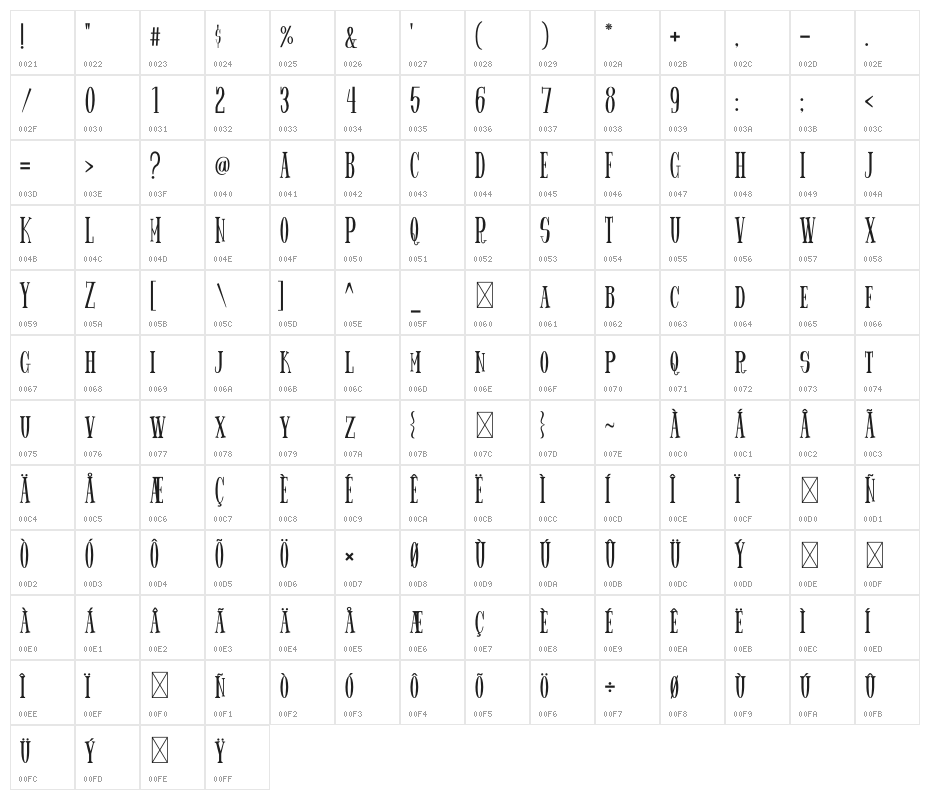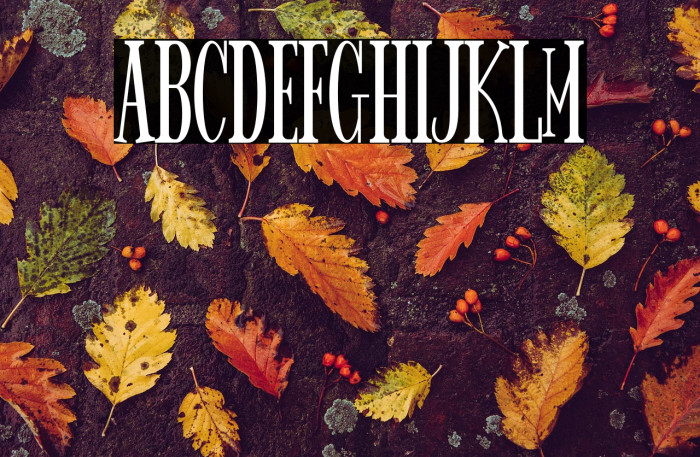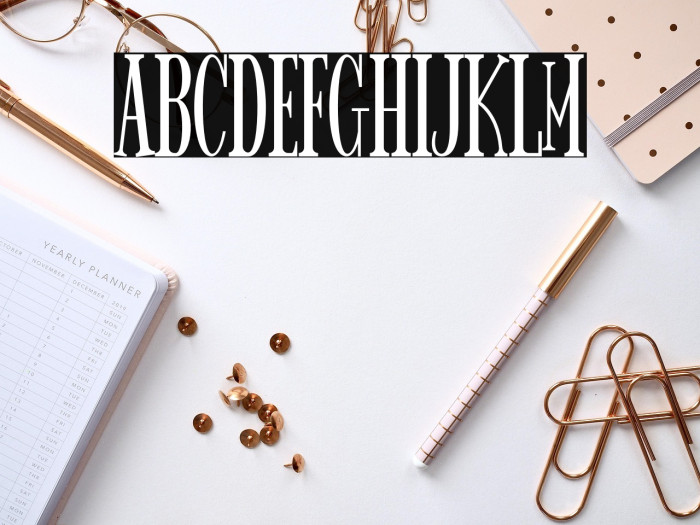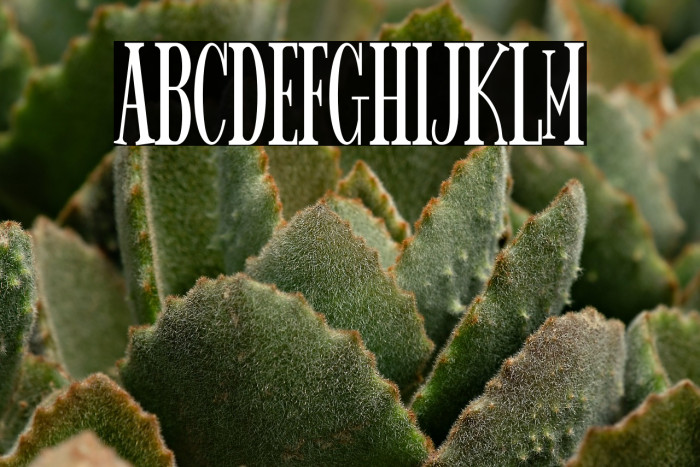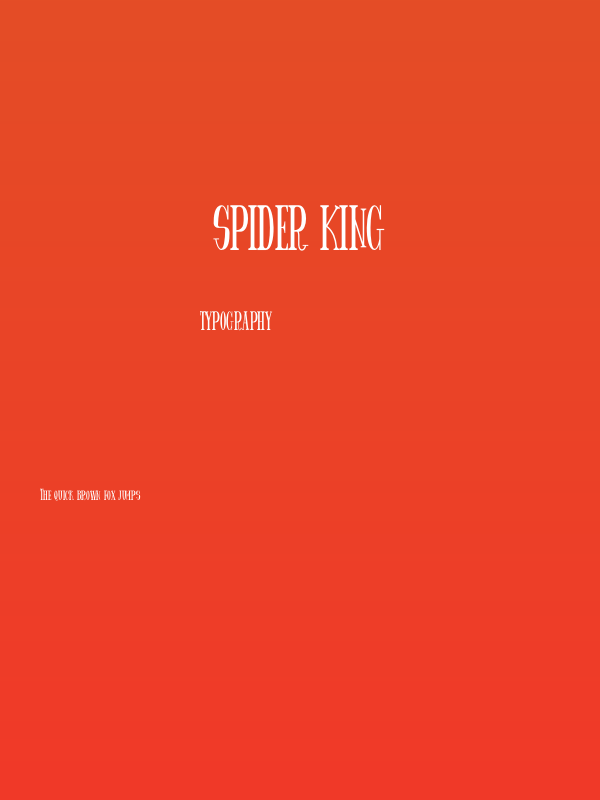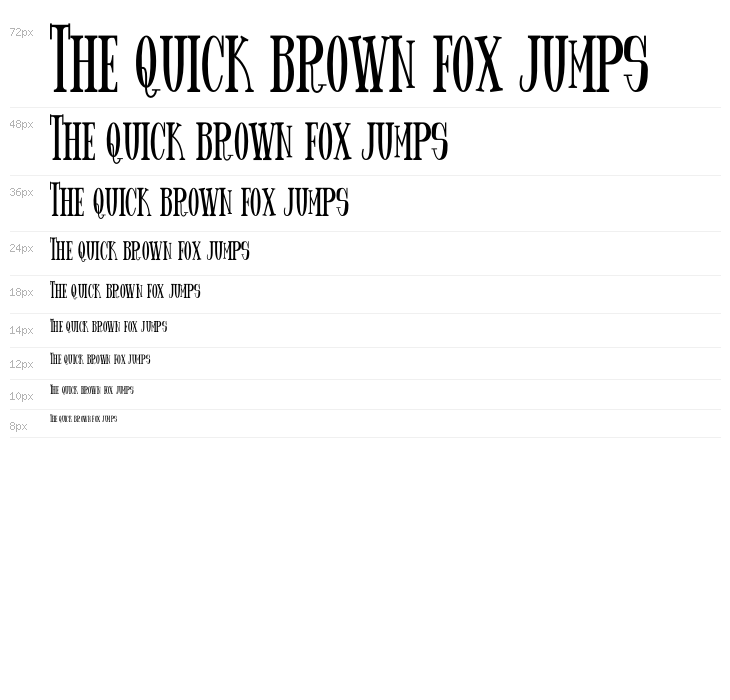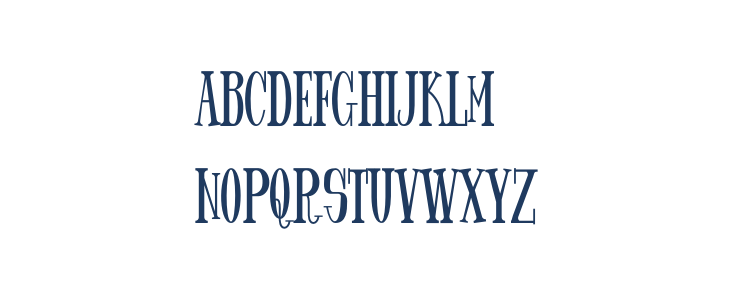
Spider King Font
Spider King Description
This font features a distinctive and bold design with elongated serifs and a high contrast between thick and thin strokes. The uppercase letters are tall and commanding, while the lowercase letters maintain a consistent style that complements the uppercase. The numerals are uniquely styled, with a slight vintage flair that adds character. Special characters are well-integrated, maintaining the overall aesthetic. This font's dramatic appearance makes it suitable for attention-grabbing designs.